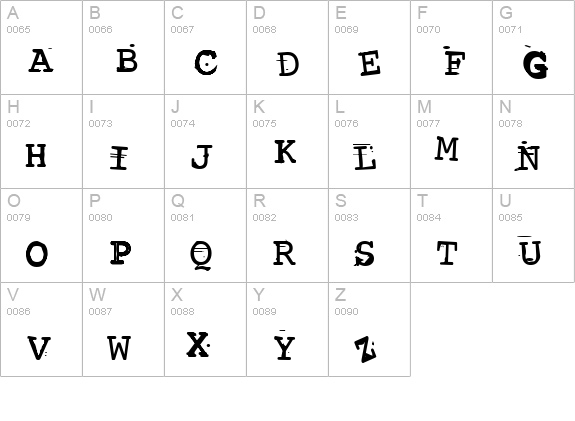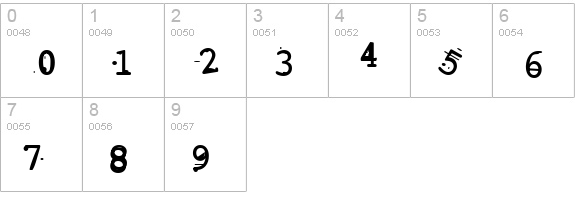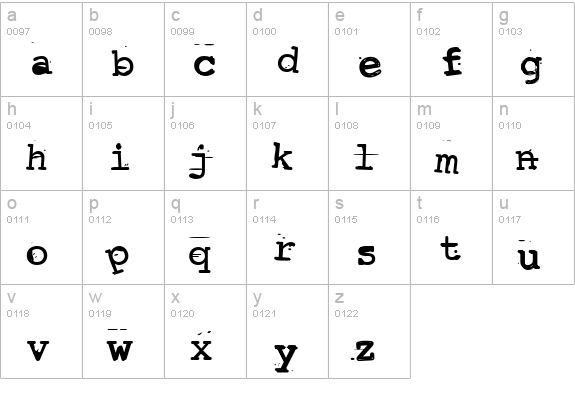
Screwed Up Typewriter Font Details
Introducing Screwed Up Typewriter font, a unique and captivating typeface that effortlessly combines vintage charm with a touch of modern edginess. This font is a testament to the beauty of imperfection, showcasing a distressed and weathered appearance that adds character and personality to any design. With its uneven letterforms and slightly skewed alignment, Screwed Up Typewriter font captures the essence of a typewriter's worn-out keys, echoing the nostalgia of a bygone era. Its irregular strokes and faded ink give off an air of authenticity, as if each character has been lovingly typed out on a decades-old machine. Ideal for adding a touch of vintage flair to your projects, Screwed Up Typewriter font is perfect for logo designs, branding materials, book covers, posters, and more. Its versatility allows it to seamlessly adapt to various design styles, from retro and grunge to modern and minimalist. But what makes Screwed Up Typewriter font even more enticing is the fact that it is freely available to download at FontsMarket.com. That's right – this exceptional font can be yours without spending a dime. Whether you're a professional designer or a hobbyist, this font provides an incredible opportunity to elevate your creations without breaking the bank. So, don't miss out on the chance to infuse your designs with a touch of nostalgic charm. Download Screwed Up Typewriter font today and experience the beauty of imperfection in typography. Let your creativity flourish with this captivating typeface and watch your designs come alive with a timeless appeal that will captivate audiences.